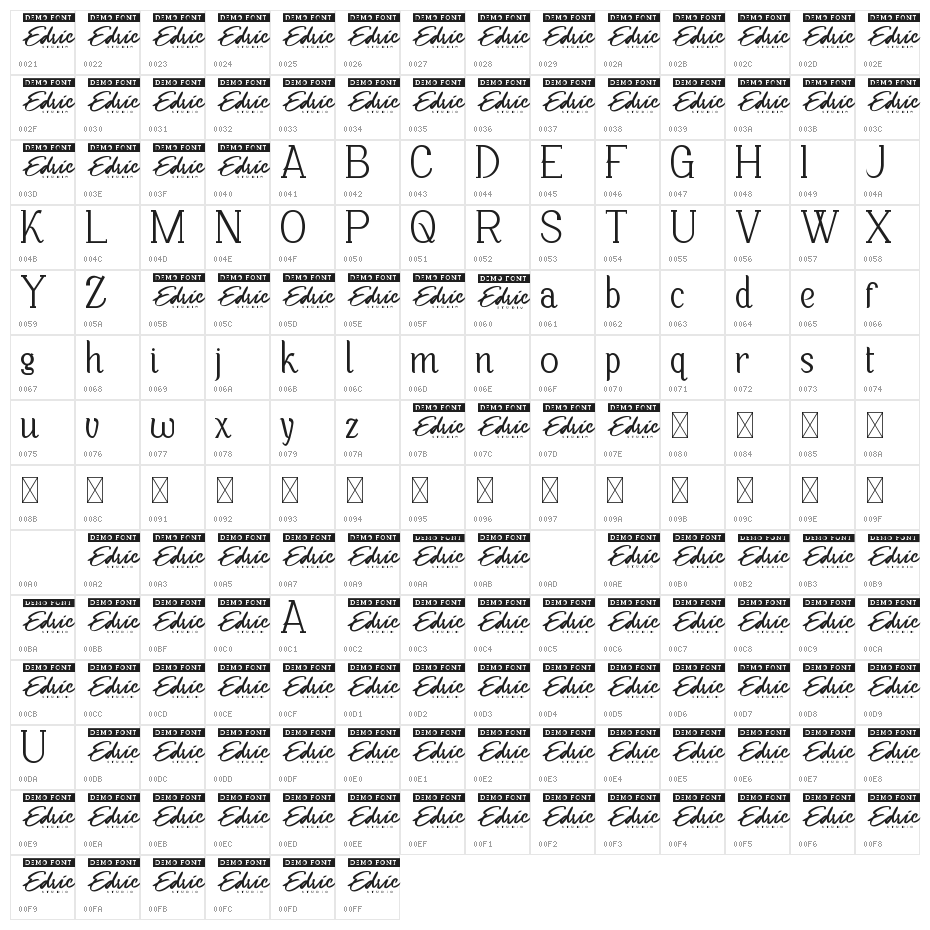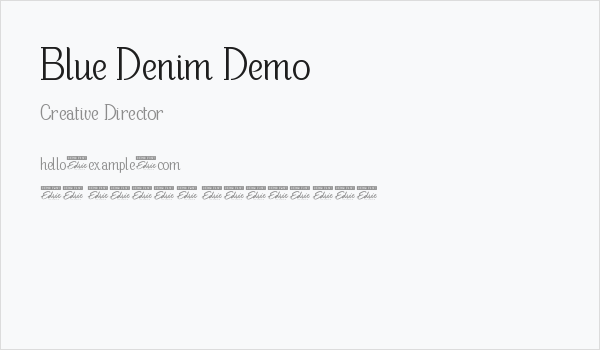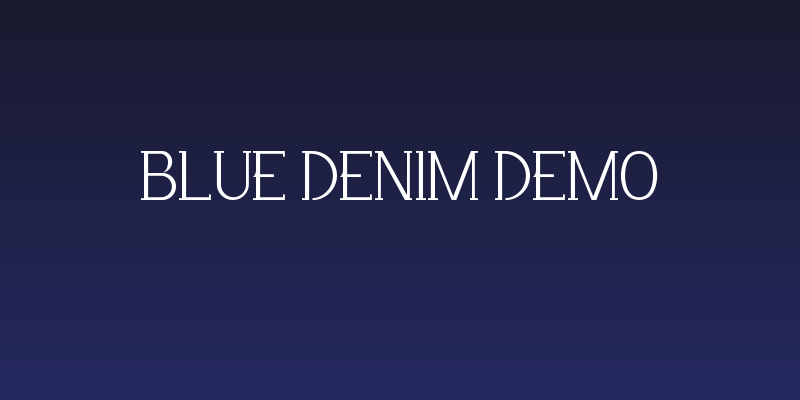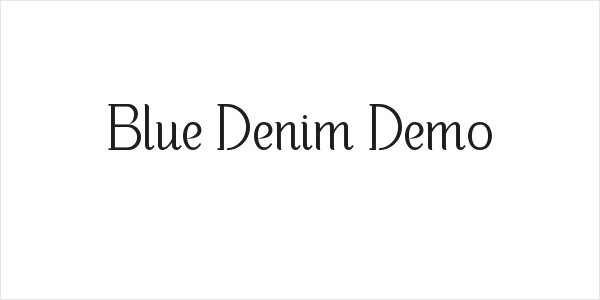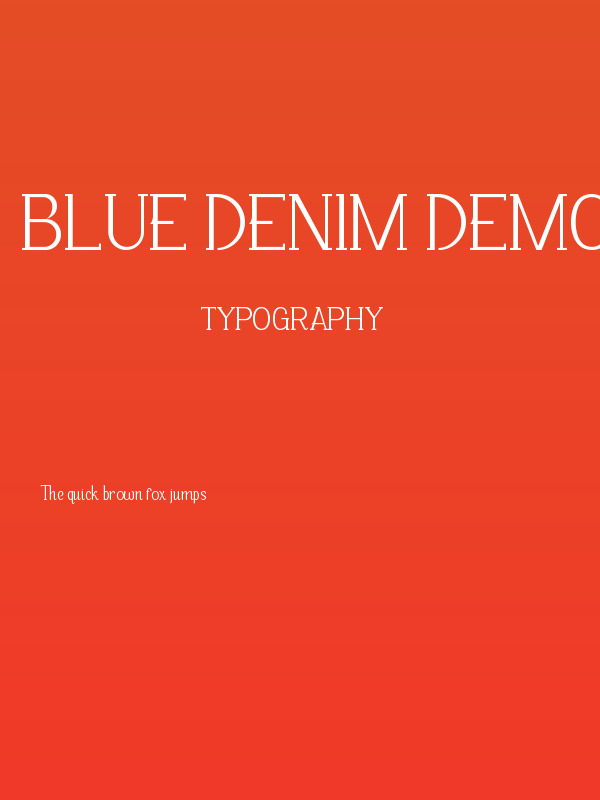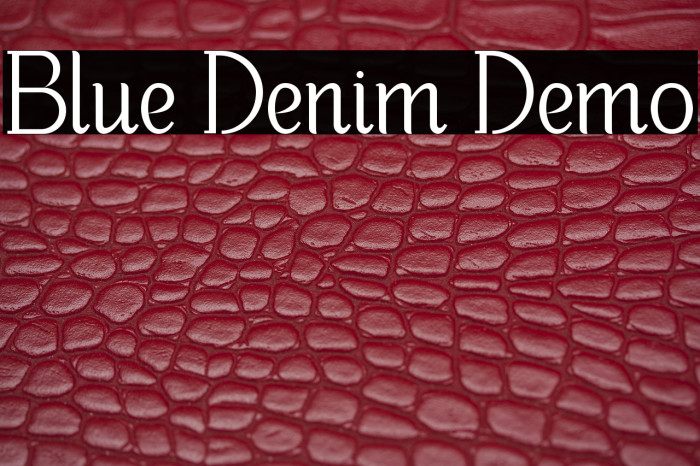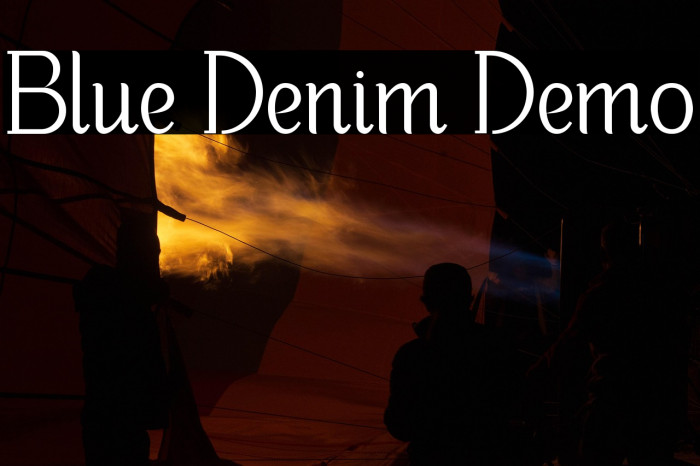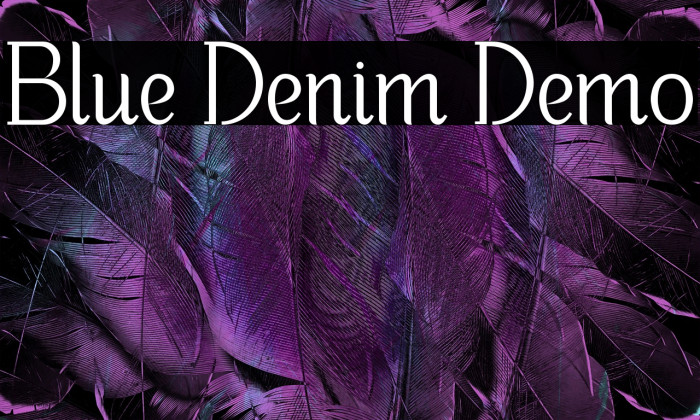
Blue Denim Demo Font
Blue Denim Demo Description
This font features a classic serif style with a modern twist, characterized by its elegant and slightly elongated letterforms. The uppercase letters are tall and stately, while the lowercase letters maintain a smooth and flowing appearance. The font exhibits a medium contrast in stroke thickness, providing a balanced and readable texture. The serifs are pronounced yet refined, adding a touch of sophistication. The overall design is versatile, suitable for both formal and casual applications. The character spacing is normal, ensuring clarity and legibility across various sizes.
| Proposed Projects | Ideal for editorial design, branding, invitations, and sophisticated advertising campaigns. |